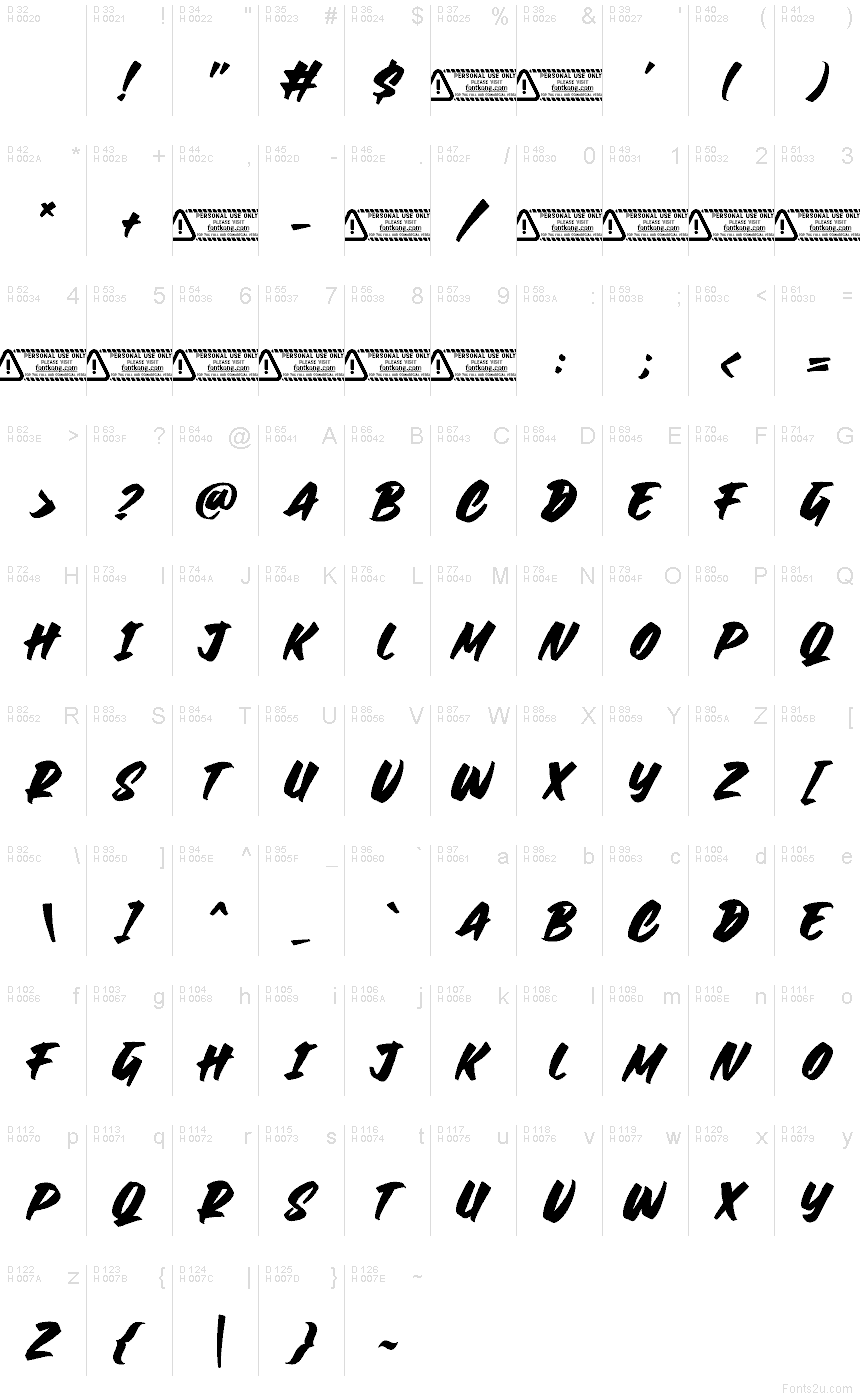
Crazys font by Kong Font is a free brush typeface with expressive, energetic letters. The bold style and casual energy are observed with each letter from A to Z. Yet, modern and impactful forms result; a combination that brings forth new creative ideas and design visions.
Crazys is for all kind of handwriting projects, comics, graffiti designs, packaging projects, headings and titles, book covers (especially horror genre), branding visual identity design (topmost layer) in addition to poster diagonal writing concepts. Its artistic nature fits perfectly conceptual art visualizations as well as landing page decorations for custom scrolls lengths planning.